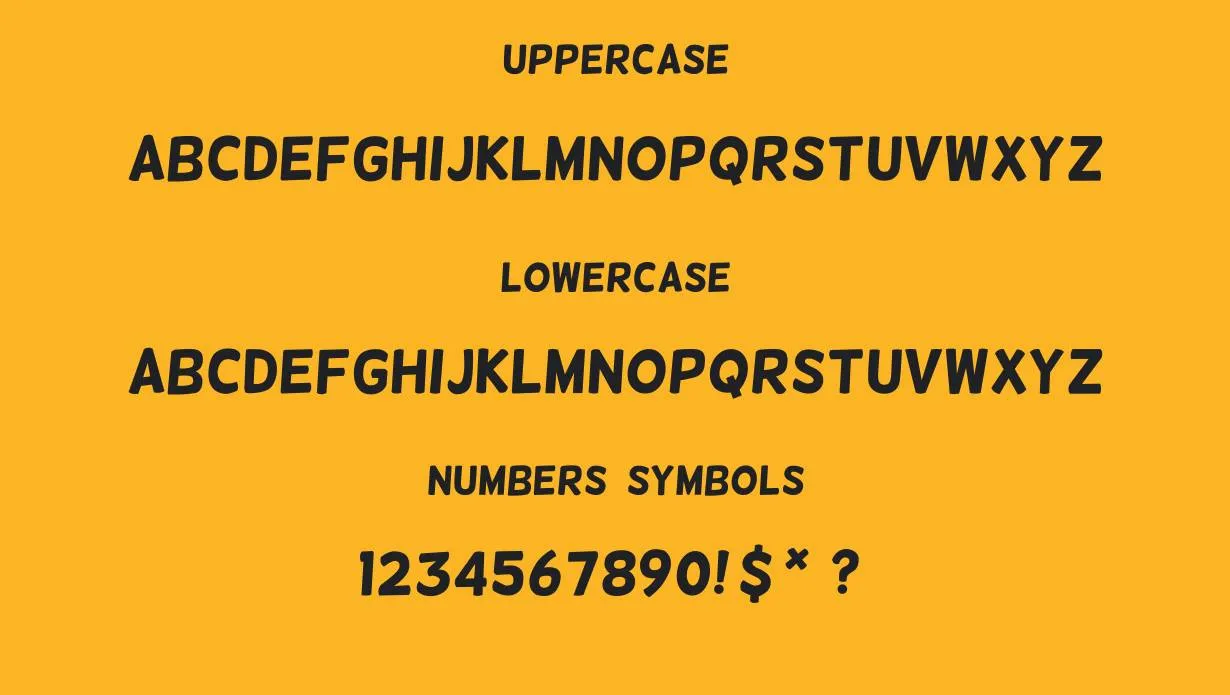
Helsinki Font is a clean and modern typeface, suitable for various design applications. Its straightforward lines and contemporary design make it a practical choice for branding, advertising, web design, and packaging, providing a contemporary and well-organized aesthetic to your projects.
| Name | Helsinki Font |
| Designer | Vic Fieger |
Helsinki Font Family